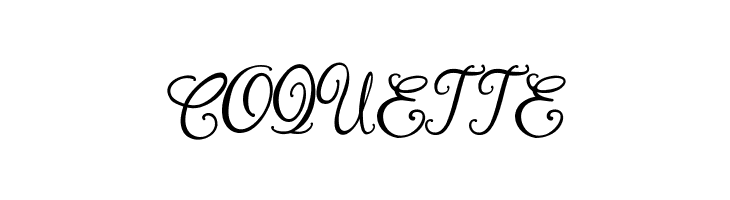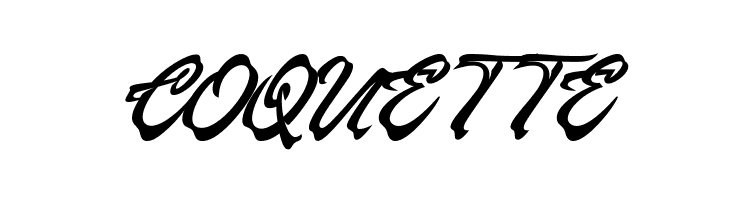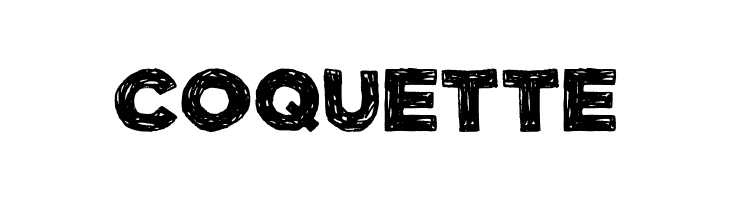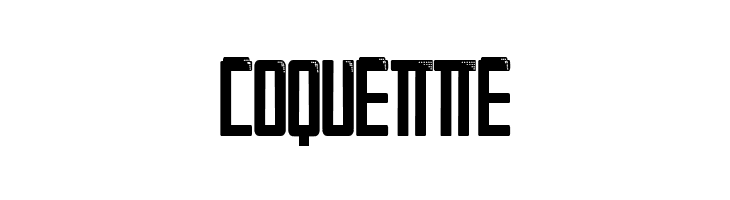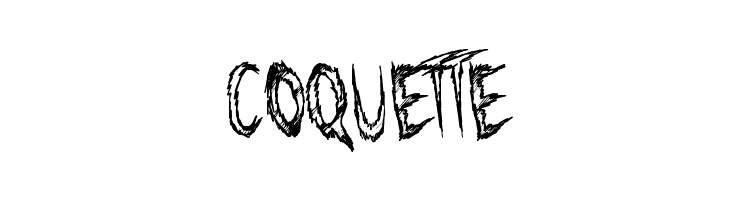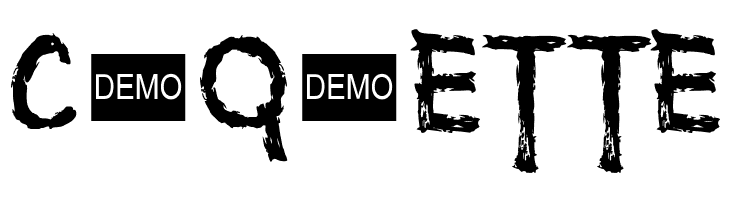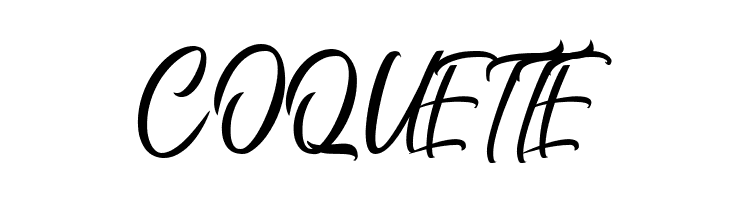
A bold, modern font with tall, narrow letterforms and strong vertical emphasis.
A bold, dynamic brush script font with fluid, interconnected strokes.
A bold, textured, hand-drawn font with a playful, artistic style.
An elegant and flowing script font with intricate loops and swashes.
A sophisticated, cursive script with graceful, elongated letterforms.
A modern, elegant script typeface with bold, slanted characters.
A rugged, distressed font with jagged edges and an aggressive style.
A bold, grunge-textured font with a rugged, geometric style.